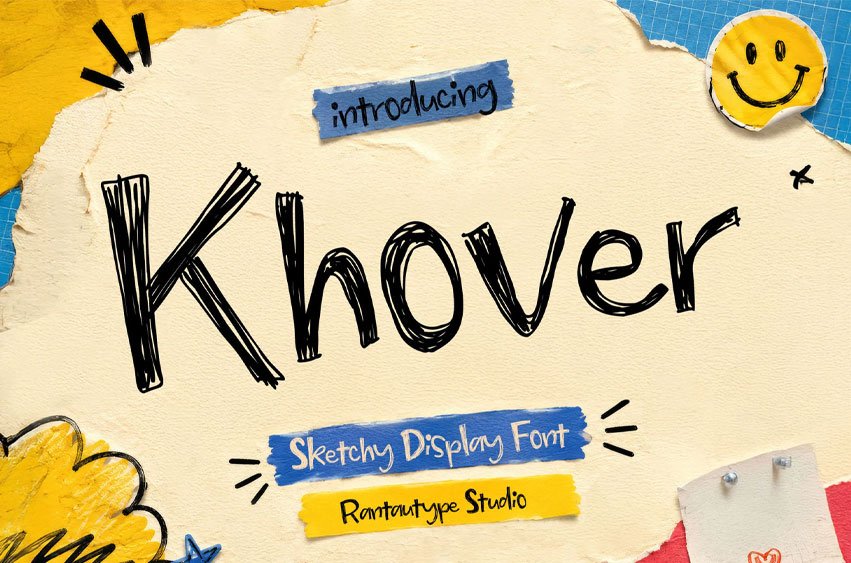
Khover Font is sketchy font inspired by hand-drawn sketchbooks, classroom doodles, paint-room messiness, and playful editorial advertising.
Khover is a perfectly choice for any creative endeavor, creating, modern, lifestyle design such as logotype, title, cover, branding, display, social media posts, advertisements, printed quotes, product packaging, corporate brand, product designs, labels, watermarks, special events and any other project with playful touch.